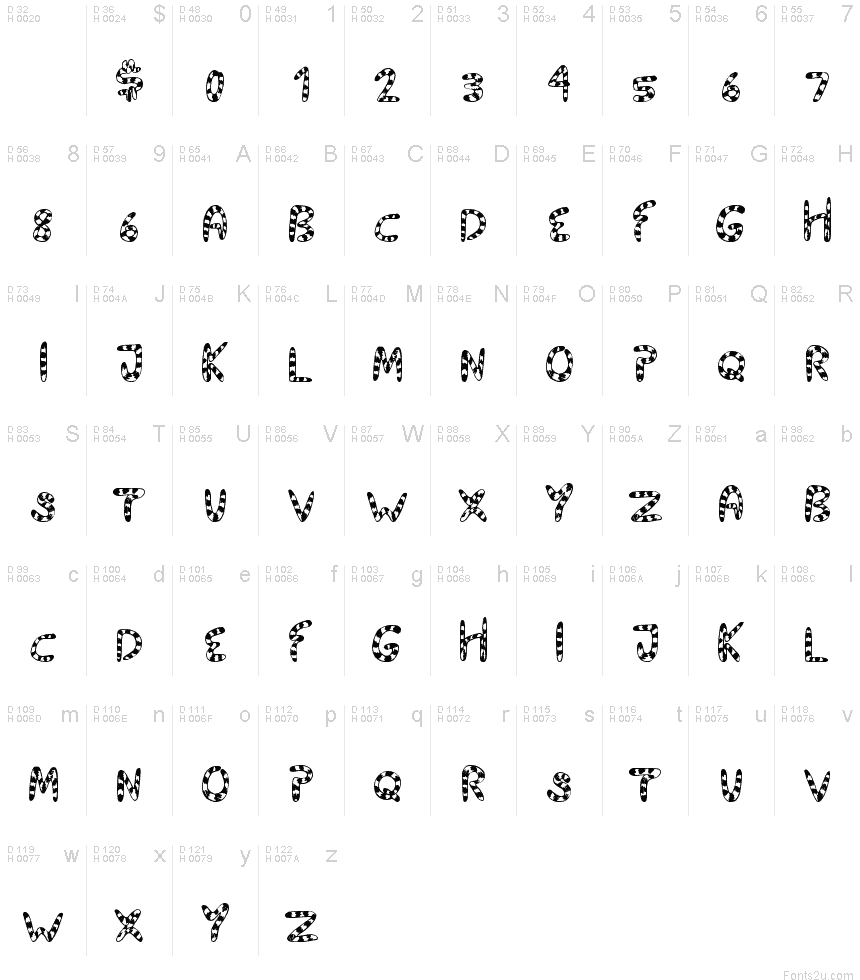
Tiger Tails by Xerographer Fonts is a free cartoon display font with broad, balloon-like silhouettes and jagged animal stripes running through the lettering. The swollen, uneven letters bounce along with a cheerful wobble.
It is strongest in children's entertainment, where its patterned forms suit family zoo posters, jungle-themed packaging, and playful game title cards with the pattern acting as built-in artwork. For novelty merchandise and event signage, the letters double as animal-print illustrations, but children's entertainment remains their clearest home.